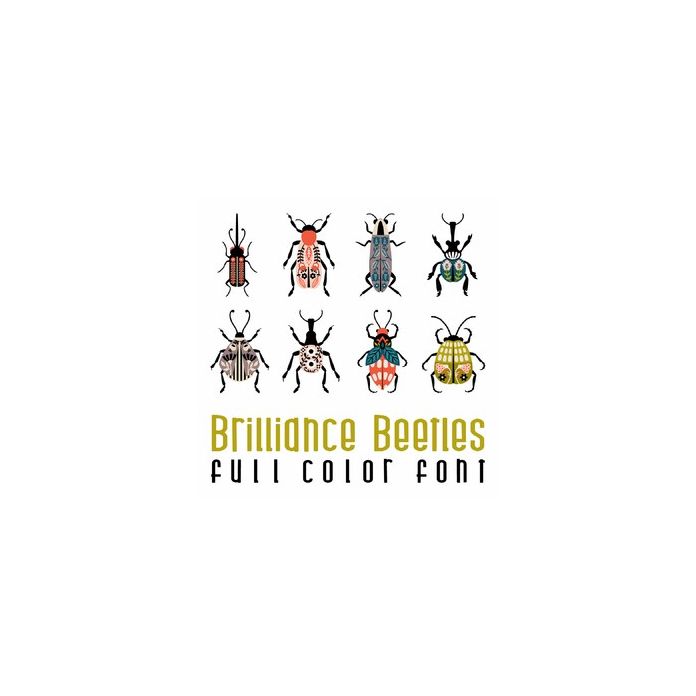
This adorable full color doodlebat font features beautiful floral beetles and phrases. Perfect for cards, crafts, gifts, decor, scrap book pages, planner stickers and more!